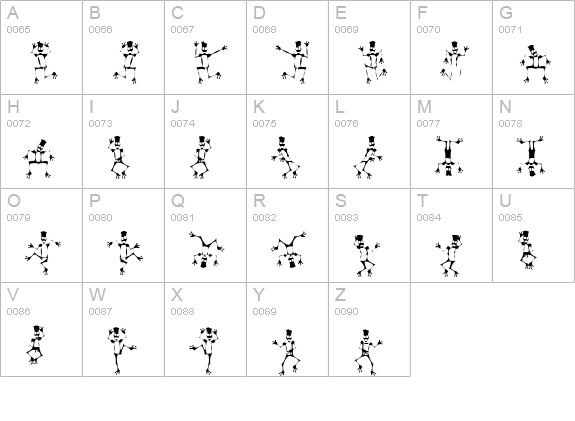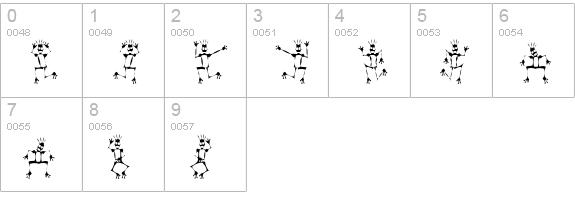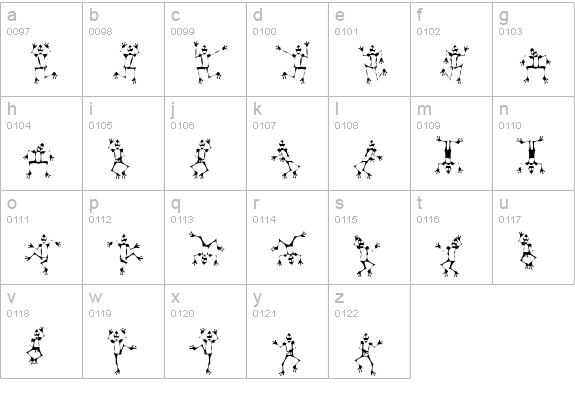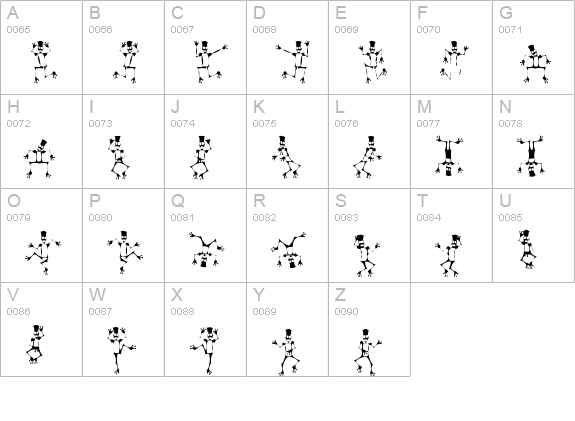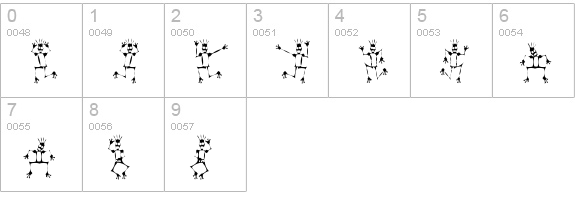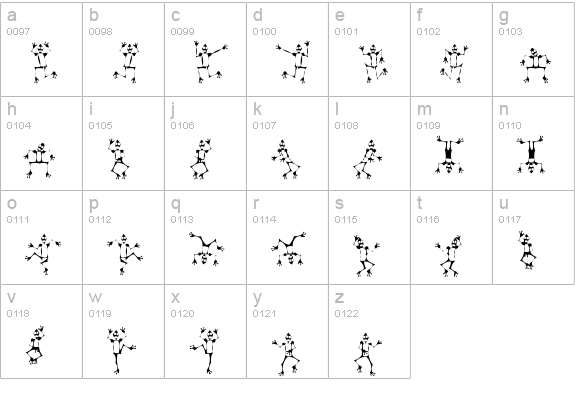
Mr Skello Funk Font Details
Introducing Mr Skello Funk font, a quirky and playful typeface that combines a spooky aesthetic with a funky twist. This unique font features skull motifs intertwined with funky patterns, making it perfect for Halloween-themed designs, music posters, and creative projects that require a touch of whimsy. Designed with attention to detail and a touch of humor, Mr Skello Funk font is sure to catch the eye and add a fun element to your projects. Whether you're looking to create eye-catching headlines or add a playful touch to your branding, this font has got you covered. Best of all, Mr Skello Funk font is available for free download at FontsMarket.com. So go ahead and give your designs a spooky yet funky vibe with this one-of-a-kind typeface.